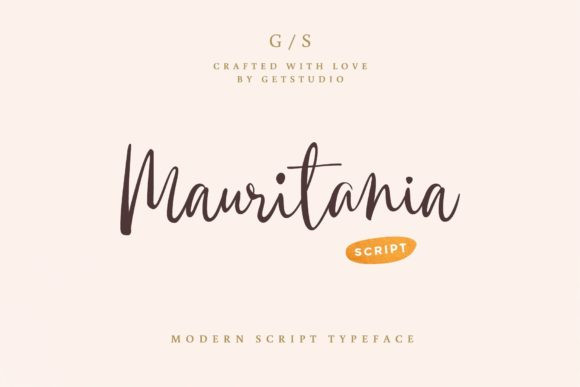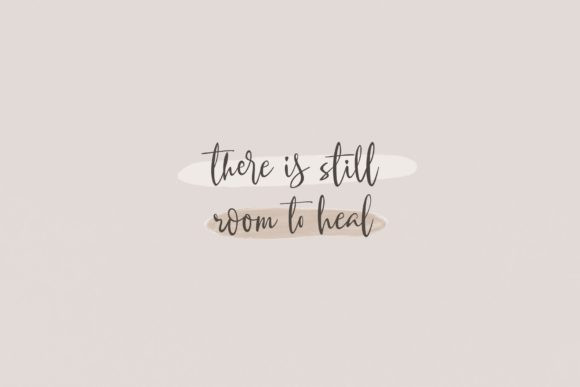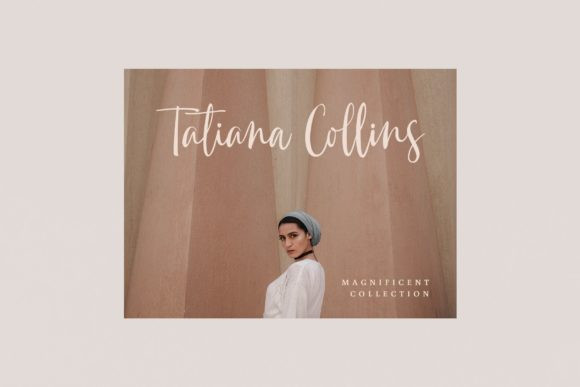
Mauritania Font
Mauritania FontMauritania is a lovely and delicate script font that exudes elegance and class. This font was particularly crafted for those who need a beautiful and refreshing look to their designs.